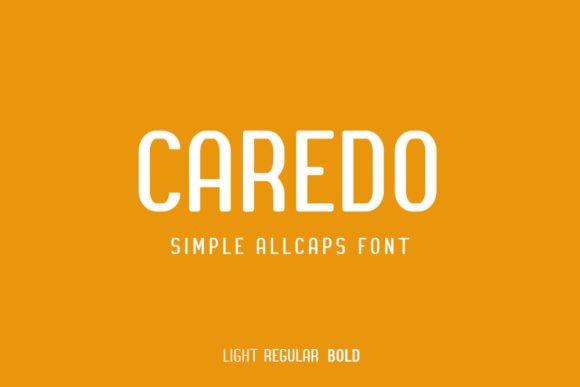
Step into the realm of professional elegance with Caredo, the sans serif font that exudes authority and sophistication. This modern masterpiece is the brainchild of Mightyfire, a renowned font foundry known for its dedication to excellence.
Caredo's clean lines and sharp angles command attention, leaving an indelible mark on readers. Its minimalist style evokes a sense of order and efficiency, making it the perfect choice for business books, reports, and any project that demands a touch of formality.
With its tall and slender structure, Caredo effortlessly adds a touch of grandeur to titles, headlines, and logos. It's the perfect font to make a statement and leave a lasting impression.
But Caredo's versatility doesn't stop there. Its ability to seamlessly blend a professional demeanor with a touch of playfulness makes it suitable for both formal and informal settings. Envision Caredo gracing the pages of a fashion magazine, adding a dash of sophistication to a poster advertising a local art exhibition, or lending a touch of whimsy to a children's book.
With Caredo's captivating presence, your designs will radiate confidence and charm. It's the perfect font to elevate your projects, whether you're a seasoned designer or just starting your creative journey.